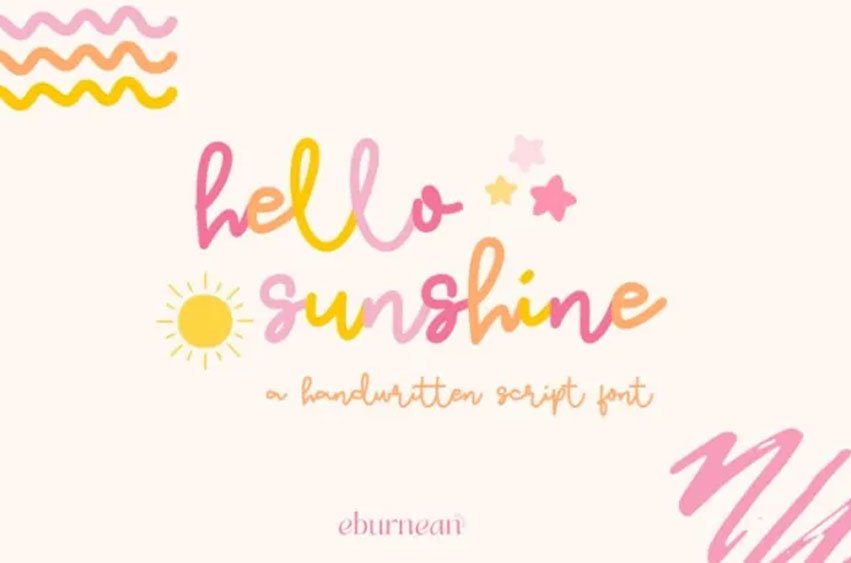
Hello Sunshine Font Add a sprinkle of charm to your designs with this delightful script font! Ideal for projects that call for a touch of whimsy, it’s perfect for everything from greeting cards and invitations to social media posts and branding materials.
With its cheerful curves and enchanting details, this cute font brings a playful vibe that makes your creations truly pop. Don’t miss out—give your designs a dose of sweetness with this lovely font today!